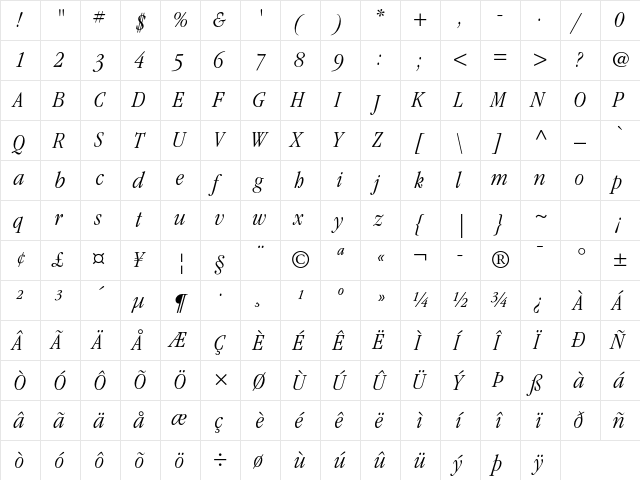
ITC Garamond Std Light Condensed Italic Font Preview
| Designer | Tony Stan |
Design Context for ITC Garamond Std Typeface
ITC Garamond Std takes a measured approach to typography — its balanced proportions and neutral character make it a reliable workhorse for both digital and print work. The dynamic lean of this cut emphasises speed and emphasis in any layout. The delicate stroke weight brings airiness and refinement to layouts. The condensed width makes it efficient for tight spaces without sacrificing legibility.
Pro Tip: Use ITC Garamond Std for emphasis, pull quotes, and subheadings where its slanted energy can add rhythm to the layout.